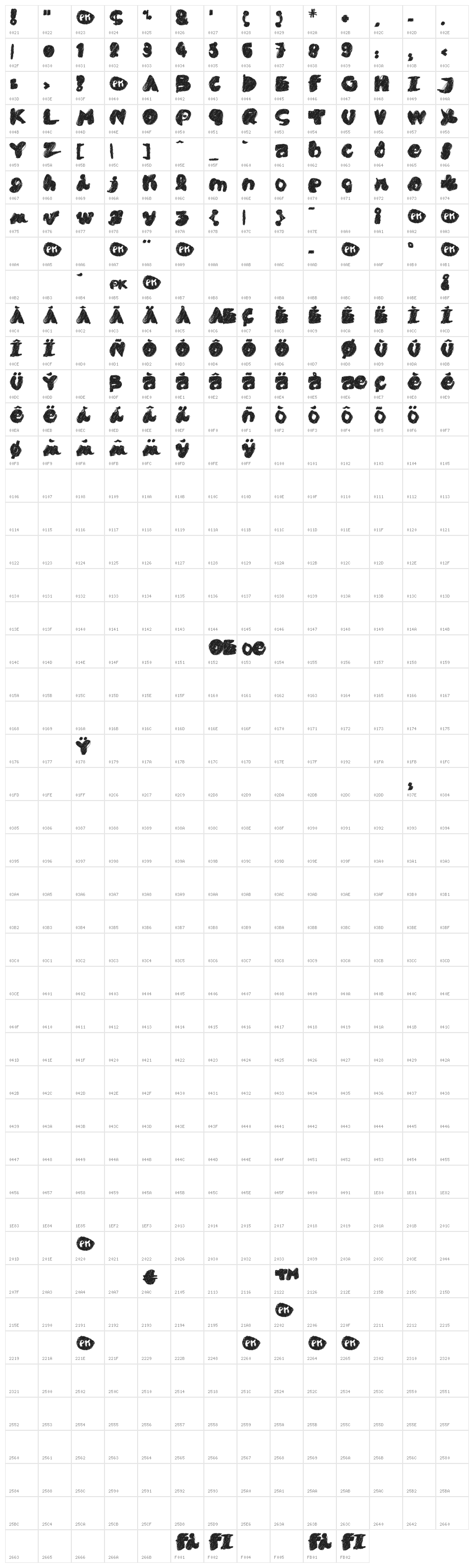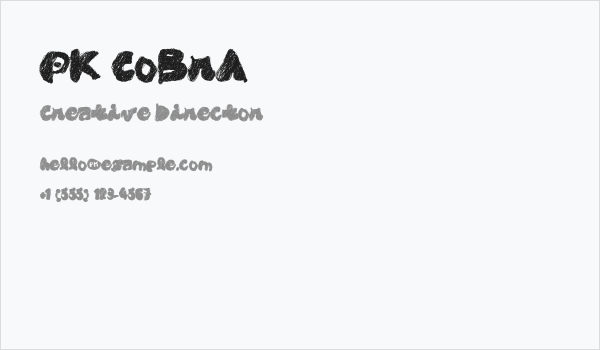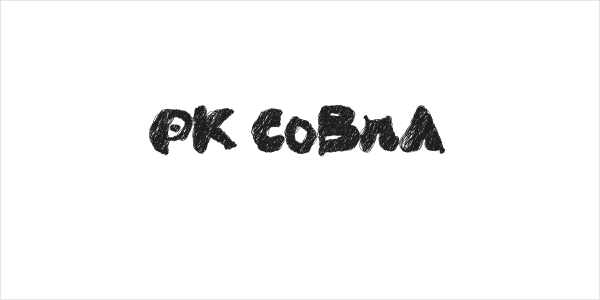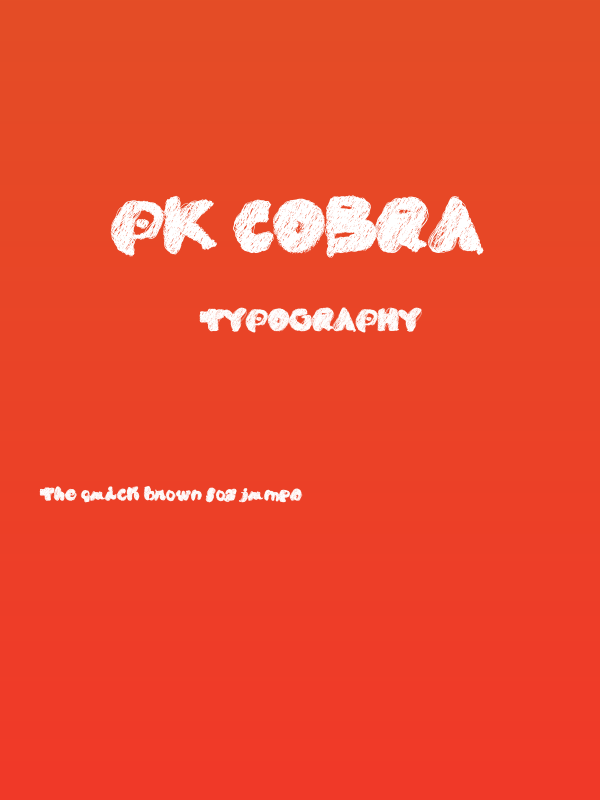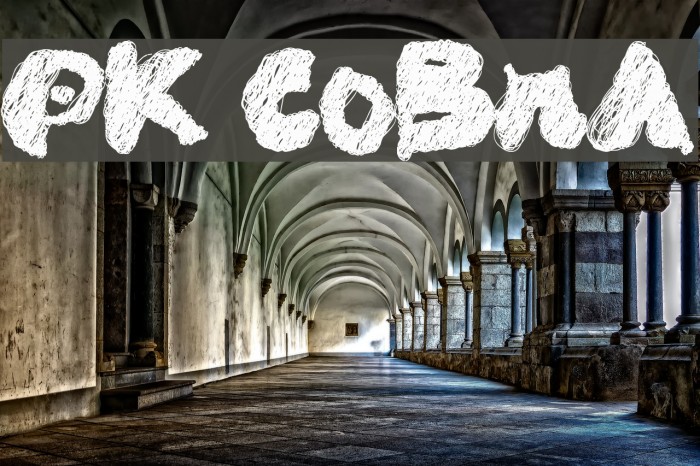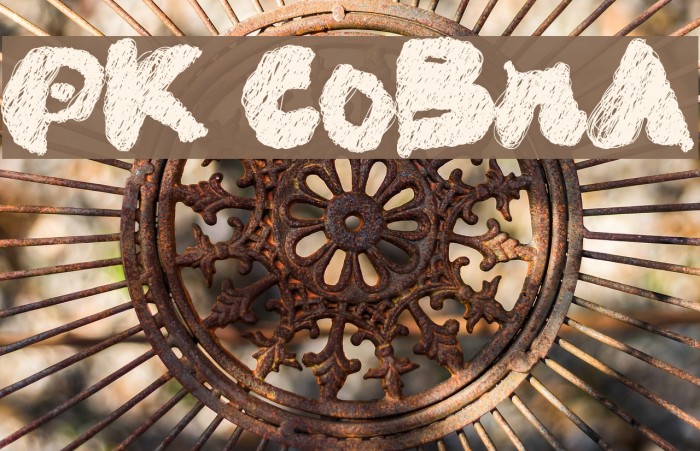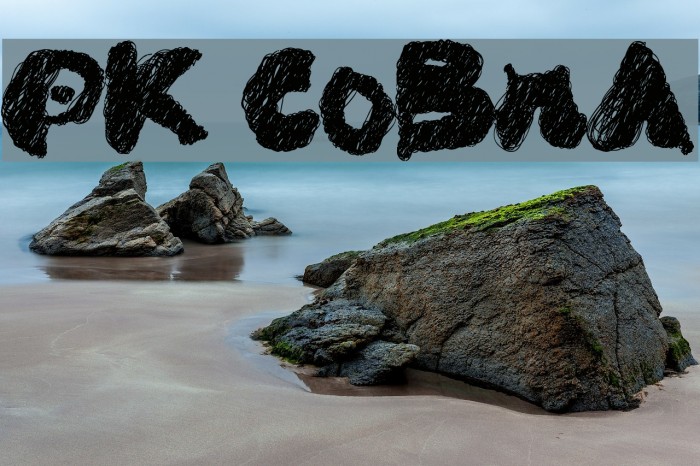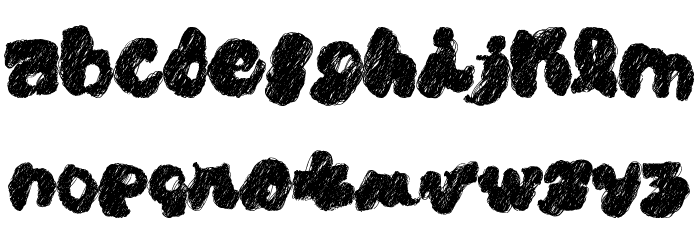
PK CoBrA Font
PK CoBrA Description
This font features a bold and textured style, reminiscent of hand-drawn or chalkboard lettering. Each character is filled with a dense, scribbled texture that gives it a unique, artistic appearance. The letters are rounded and somewhat irregular, adding to the casual and playful feel. The uppercase and lowercase letters maintain a consistent style, with the lowercase being slightly smaller and more compact. Numbers and special characters follow the same design, ensuring a cohesive look across all elements. The overall impression is one of creativity and informality, making it suitable for projects that require a distinctive and eye-catching typeface.
| Overall Style | Artistic |
| Proposed Projects | Ideal for creative projects, posters, children's books, and artistic branding. |